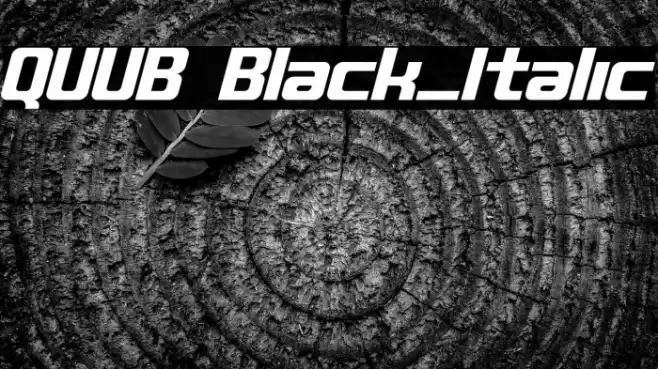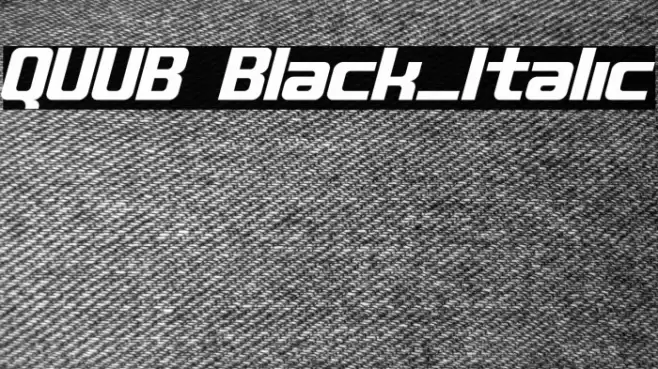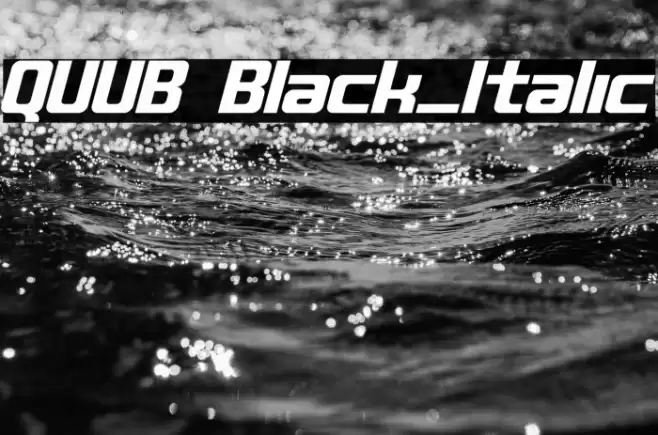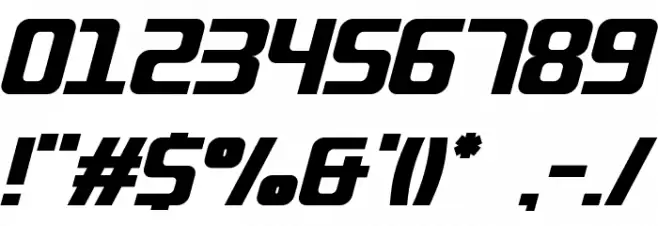
QUUB Black_Italic Font
QUUB Black_Italic Description
This font exhibits a bold and dynamic style with a strong italic slant, giving it a sense of motion and energy. The characters are thick and robust, with a consistent stroke width that enhances readability. The design is modern and sleek, featuring angular edges and a slightly condensed form that adds to its compact appearance. The uppercase and lowercase letters maintain a uniform height, while the numerals are clear and distinct. Special characters are well-integrated, maintaining the overall aesthetic of the font.
A bold, italic font with a modern and dynamic style from Regular fonts.
- Proposed Projects: Ideal for sports branding, dynamic posters, modern advertising, and tech-related projects.